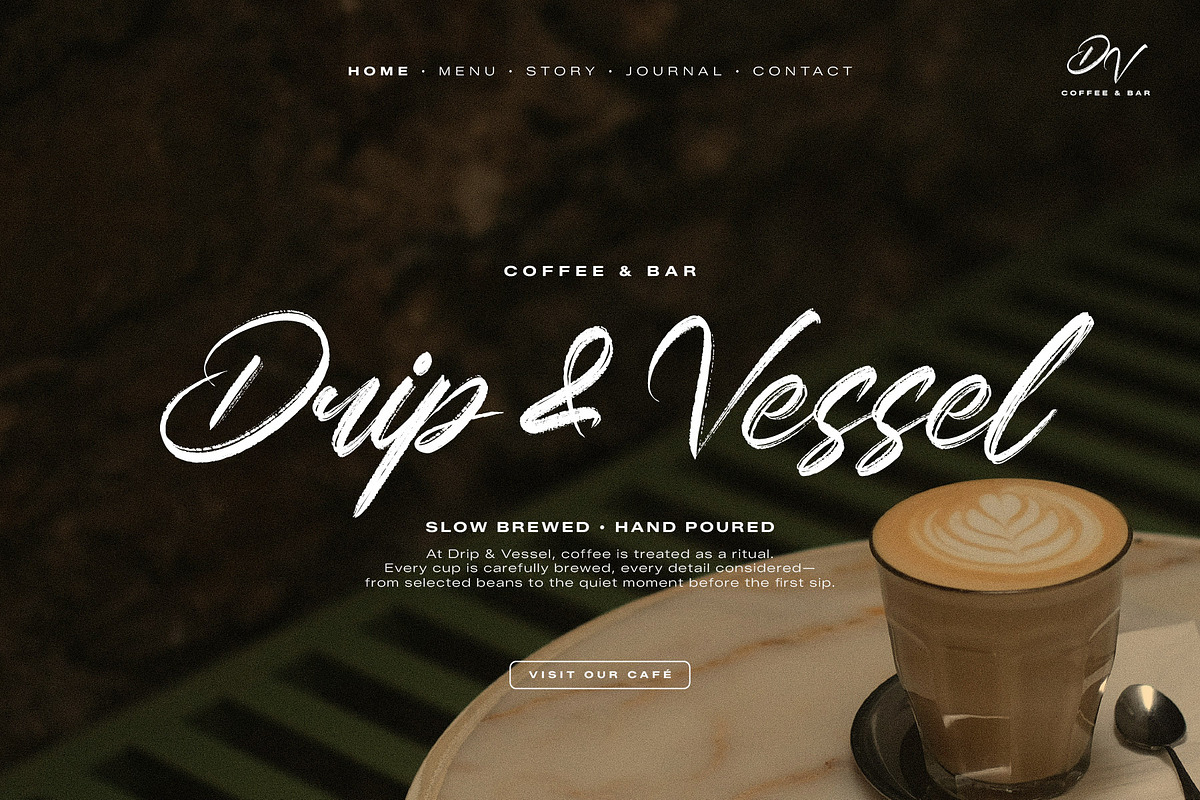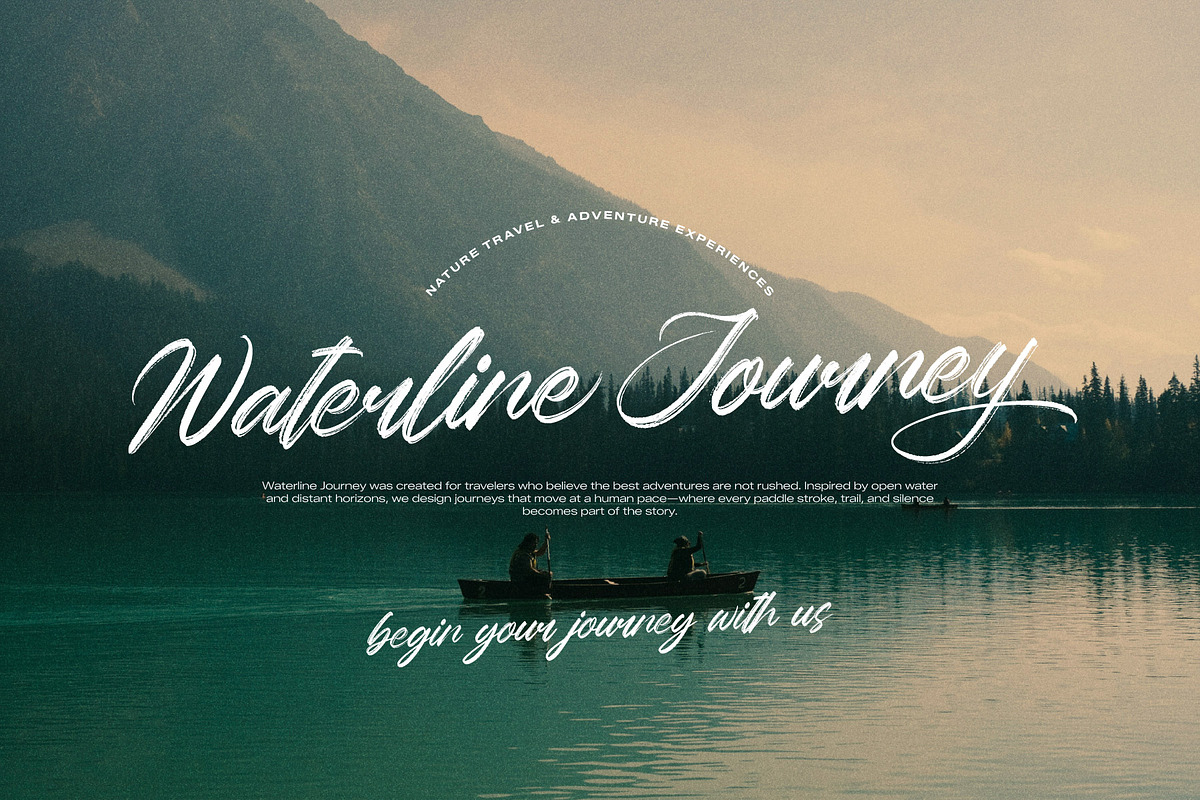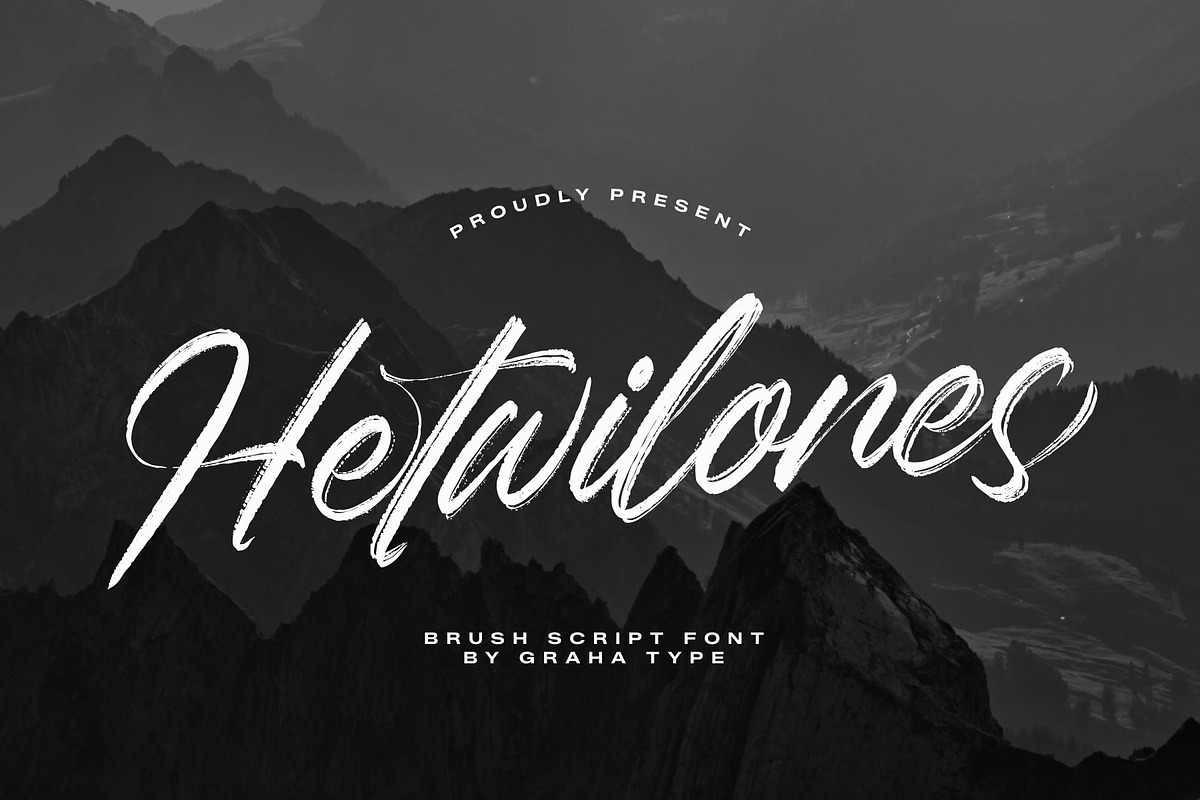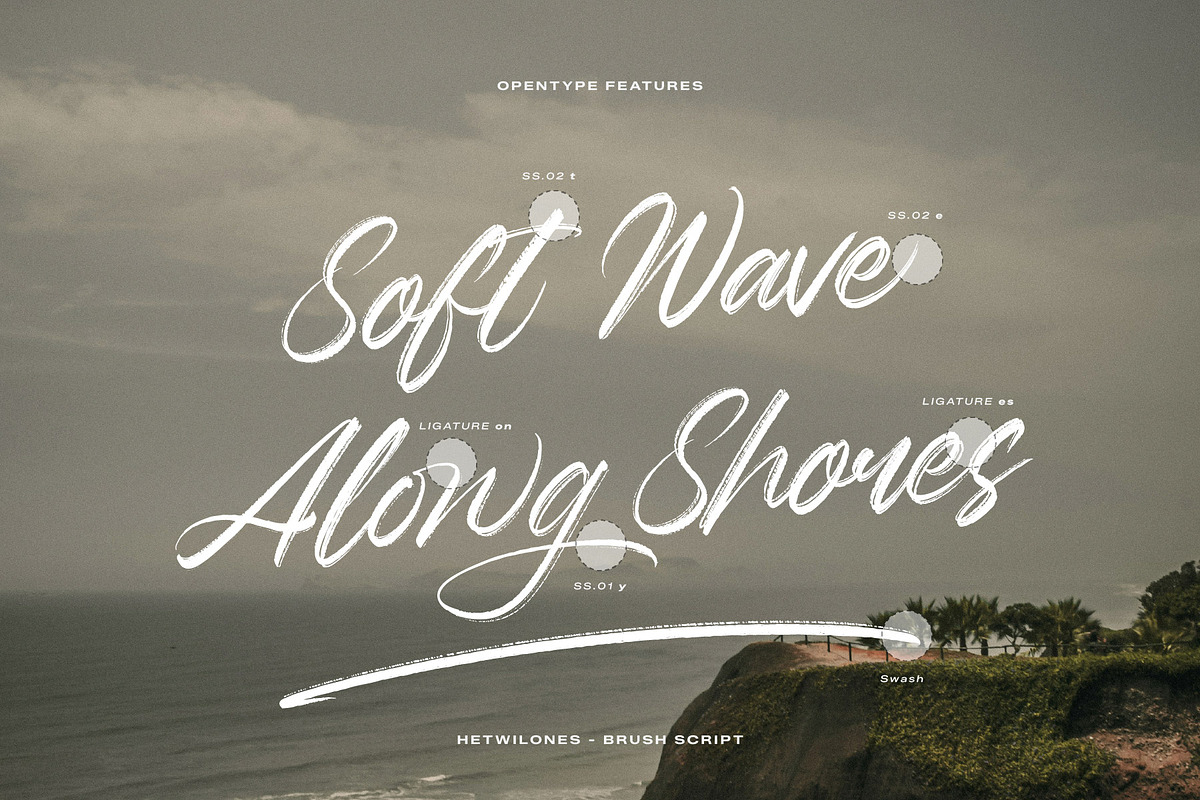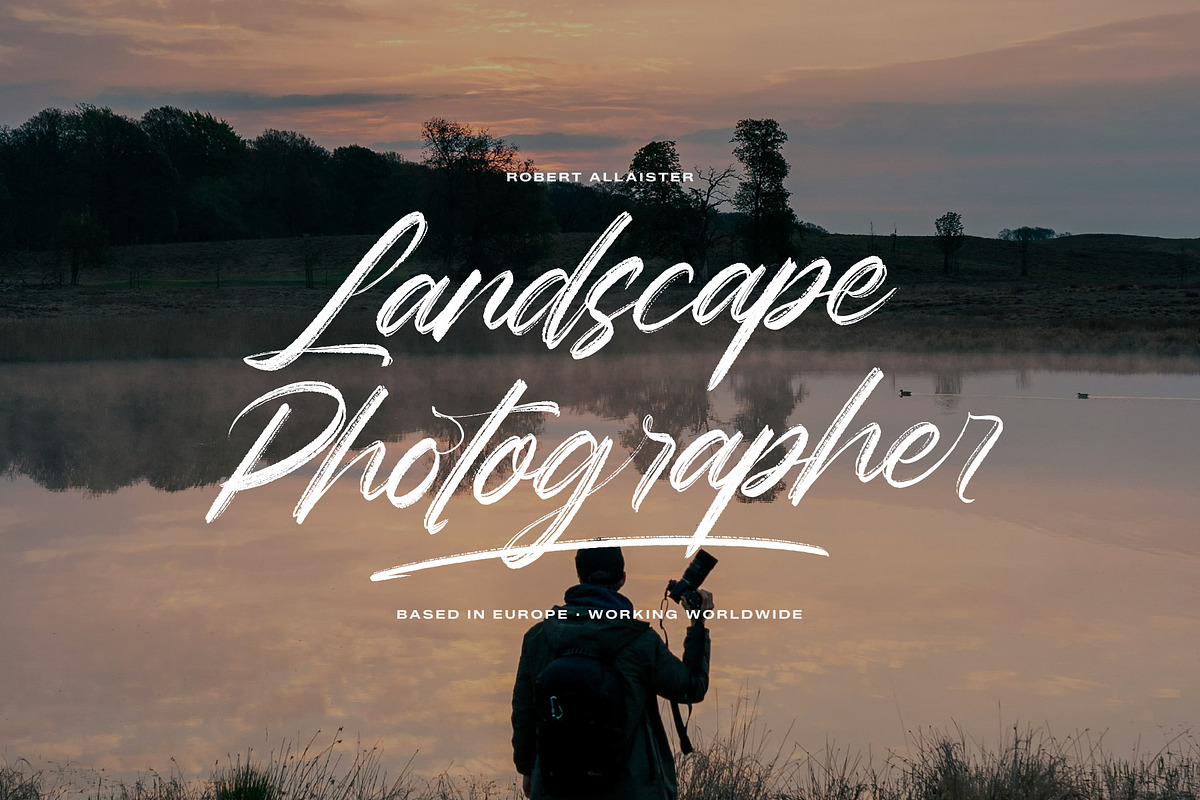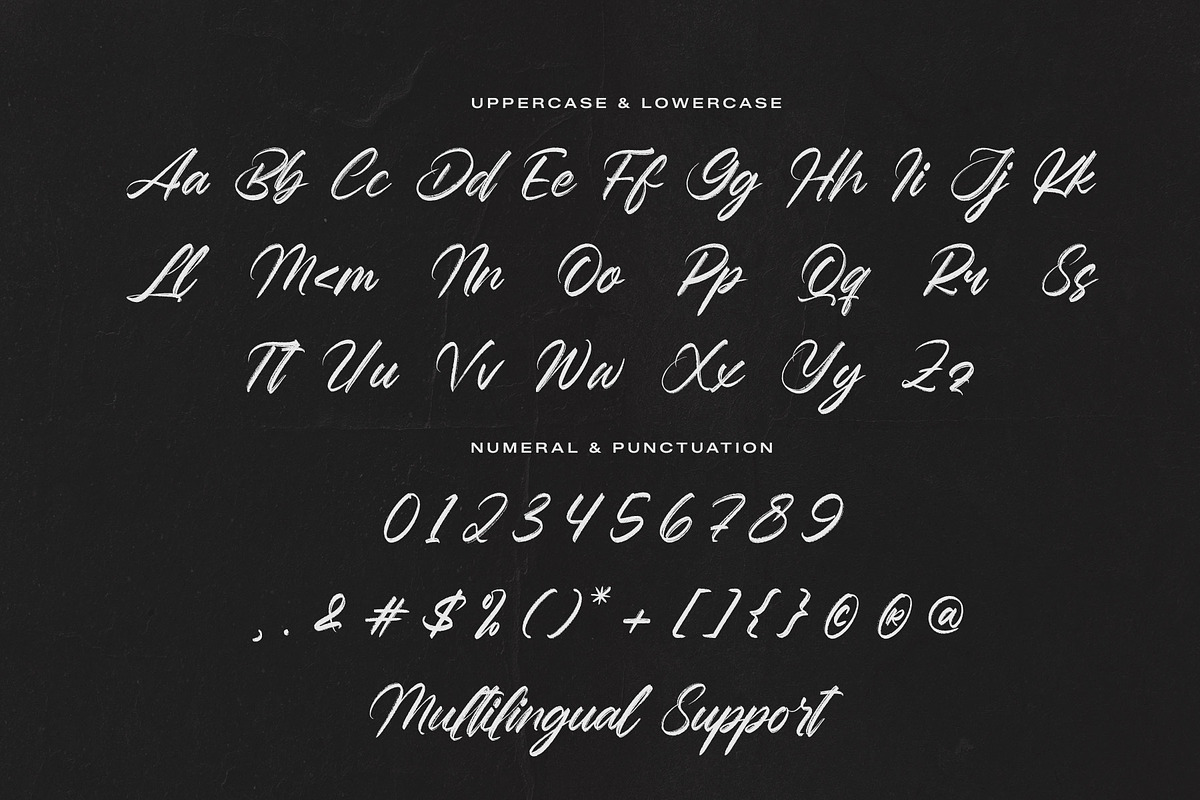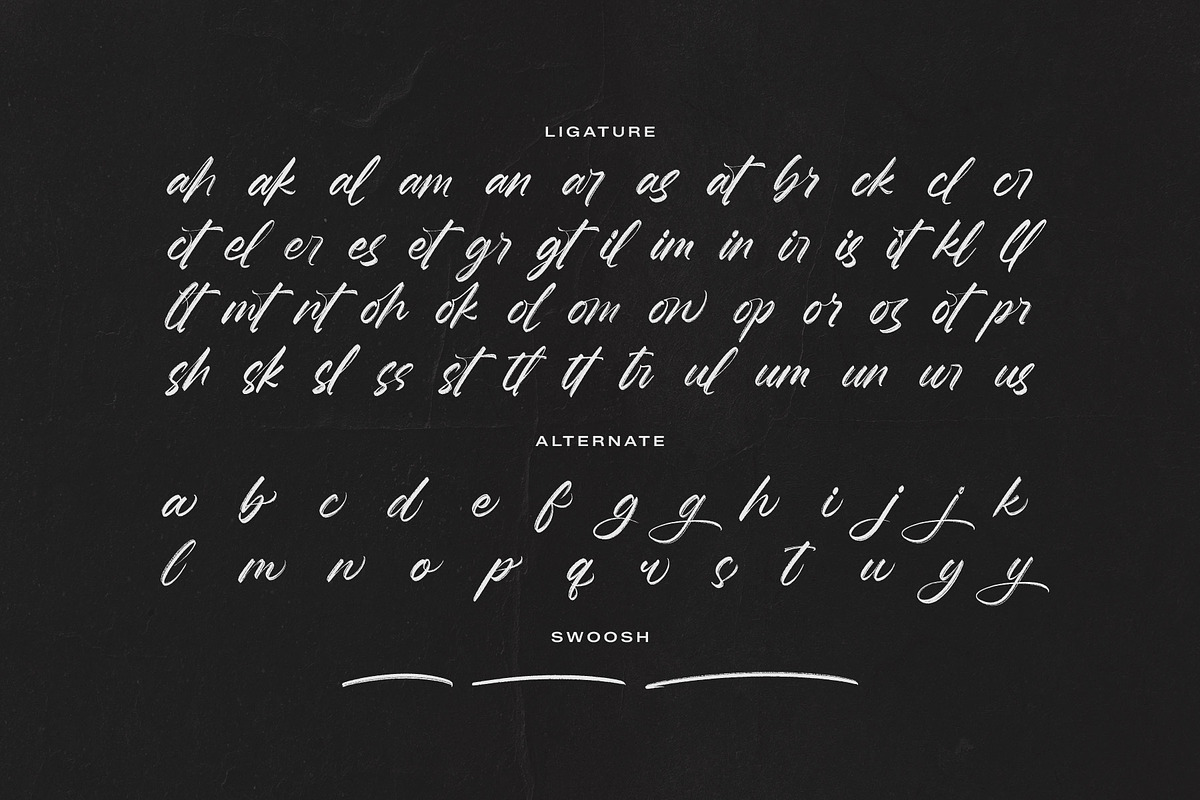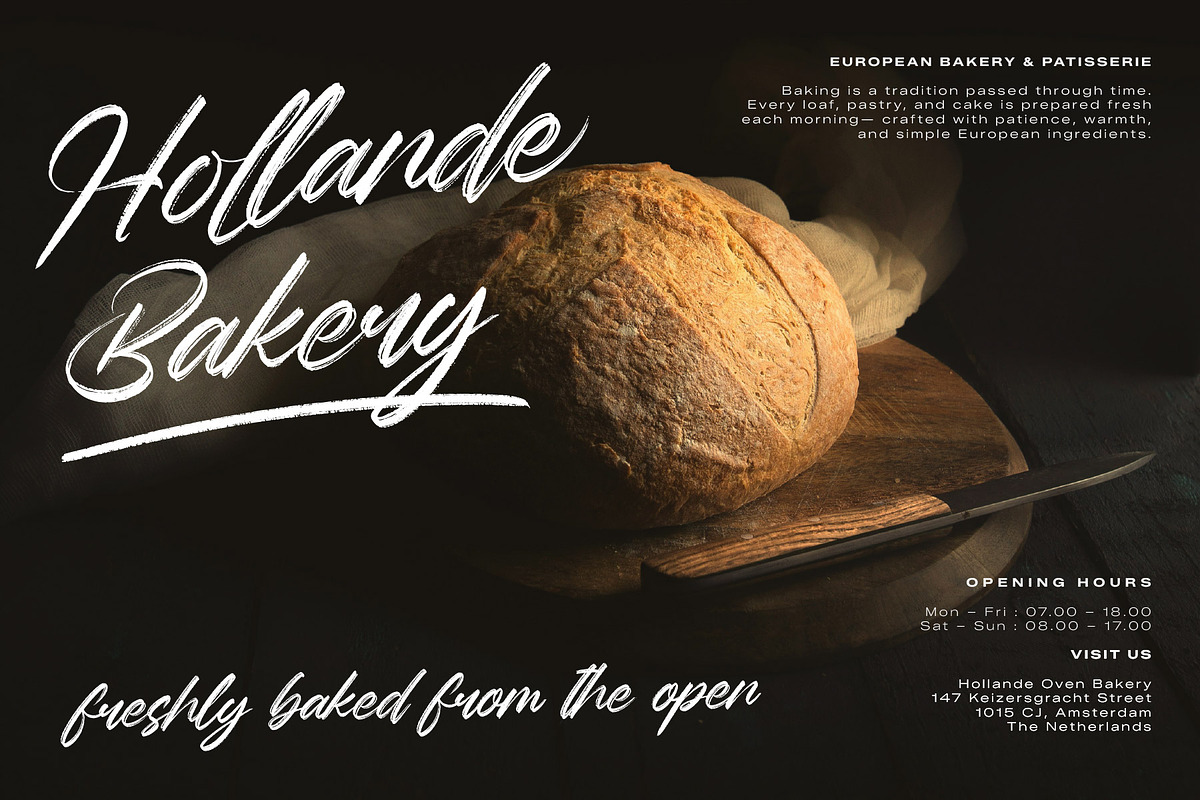
Hetwilones - Brush Script Font
Hetwilones is a bold brush script font with strong strokes and expressive character, designed to create a dynamic, powerful, and adventurous look. This font delivers high visual impact with an organic brush feel, perfect for standout typography.
This Font is ideal for posters, logos, branding, headlines, apparel, packaging, social media graphics, merchandise, and editorial designs that need bold energy and expressive lettering.
- Opentype Features (Alternates & Ligatures)
Create bold and dynamic designs with Hetwilones.